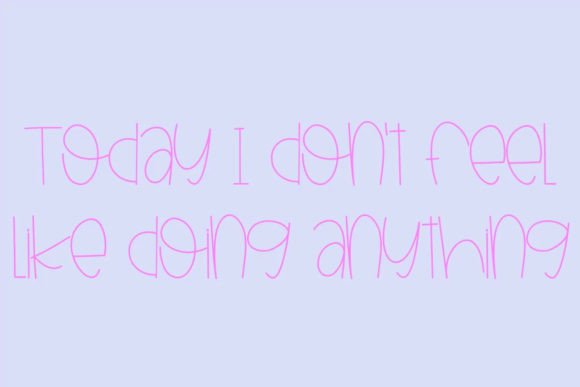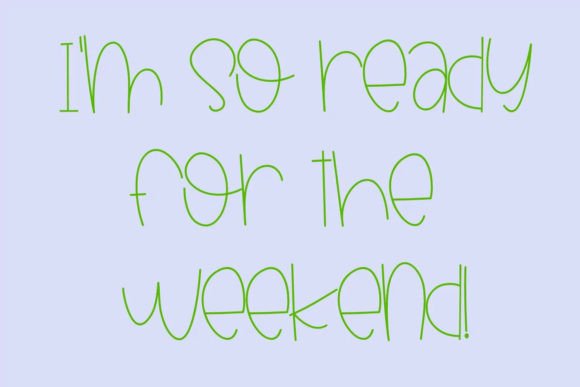
Avoiding Work Font: Adding a Quirky Touch to Your Designs
Are you tired of using the same old fonts in your designs? Look no further than the Avoiding Work font, a skinny and tall, handwritten font with a quirky modern look. This unique font is perfect for adding a personal touch to a variety of crafts and projects, invitations, cards, and more.
What is Avoiding Work Font?
Avoiding Work font is a distinctive, handwritten font that is characterized by its tall and skinny letters. The font has a quirky, modern look that sets it apart from more traditional fonts. Its unique style makes it perfect for designs that require a bit of personality and whimsy.
Features of Avoiding Work Font
- Quirky Modern Look: The Avoiding Work font has a modern, quirky look that will add a touch of personality to your designs.
- Skinny and Tall Letters: The font’s tall and skinny letters make it perfect for creating designs that require a bit of elegance and sophistication.
- Handwritten Style: The font’s handwritten style gives it a personal, human touch that will make your designs stand out.
- Versatile: The Avoiding Work font can be used on a variety of crafts and projects, invitations, cards, and more.
Uses of Avoiding Work Font
The Avoiding Work font is versatile and can be used on a wide range of designs, including:
- Crafts and Projects: The font is perfect for adding a personal touch to crafts and projects, such as scrapbooking, DIY signs, and more.
- Invitations: The font’s quirky modern look makes it perfect for invitations, such as birthday parties, baby showers, and more.
- Cards: The font is great for creating greeting cards, such as birthday cards, thank-you cards, and more.
- Signs and Posters: The font can be used to create eye-catching signs and posters for events, sales, and more.
Tips for Using Avoiding Work Font
Here are a few tips for using the Avoiding Work font effectively:
- Use it as a Headline Font: The font’s tall and skinny letters make it perfect for use as a headline font.
- Pair it with Other Fonts: The Avoiding Work font can be paired with other fonts to create a unique and interesting look.
- Experiment with Colors: The font looks great in a variety of colors, so don’t be afraid to experiment and find the perfect color for your design.
The Avoiding Work font is a unique and versatile font that can add a quirky touch to your designs. Its skinny and tall letters, handwritten style, and quirky modern look make it perfect for a wide range of crafts and projects, invitations, cards, and more. With its many uses and tips for effective use, the Avoiding Work font is a great addition to any designer’s toolkit.
Get Creative with Avoiding Work Font
So why not give the Avoiding Work font a try? With its many uses and versatility, it’s the perfect font for designers and crafters looking to add a bit of personality to their designs. Whether you’re creating crafts and projects, invitations, cards, or more, the Avoiding Work font is sure to make your designs stand out.